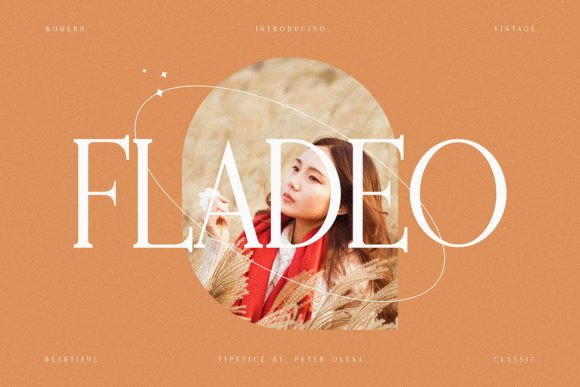
Introducing Fladeo Font: Elevate Your Design to New Heights of Sophistication
In the world of typography, a font can make or break the visual appeal of a project. For designers and brands looking to make a lasting impression, Fladeo Font is an exceptional choice. This fancy and stylish serif font is specifically designed to elevate any project to the next level of sophistication. With its intricate details and elegant curves, Fladeo creates a refined and classy look that is perfect for high-end branding, packaging, and editorial design.
The Characteristics of Fladeo Font
Fladeo Font boasts a range of characteristics that set it apart from other fonts. Its serif design provides a classic and timeless feel, while its intricate details and elegant curves add a touch of luxury and refinement. The font’s refined and classy look makes it perfect for projects that require a high level of sophistication.
- Fancy and Stylish Design: Fladeo Font features a unique and stylish design that is sure to make your project stand out.
- Intricate Details: The font’s intricate details add a level of sophistication and elegance to your project.
- Elegant Curves: The elegant curves of Fladeo Font create a refined and classy look that is perfect for high-end branding and design.
- PUA Encoded: Fladeo Font is PUA encoded, which means you can access all glyphs and swashes effortlessly.
The Benefits of Using Fladeo Font
Using Fladeo Font in your project can have a significant impact on its overall success. Here are just a few benefits of using this exceptional font:
- Luxury and Refinement: Fladeo Font adds a touch of luxury and refinement to your project, making it unforgettable.
- High-End Branding: The font’s sophisticated design makes it perfect for high-end branding and packaging.
- Editorial Design: Fladeo Font is also ideal for editorial design, adding a level of elegance and sophistication to any publication.
- Versatility: The font’s versatility means it can be used in a range of projects, from logos and branding to packaging and editorial design.
How to Use Fladeo Font in Your Project
Using Fladeo Font in your project is easy. Here are a few tips to get you started:
- Pair it with Other Fonts: Fladeo Font pairs well with other fonts, making it easy to create a unique and stylish design.
- Experiment with Different Sizes: The font’s versatility means it can be used in a range of sizes, from small captions to large headlines.
- Take Advantage of PUA Encoding: Fladeo Font’s PUA encoding makes it easy to access all glyphs and swashes, allowing you to create a truly unique design.
In conclusion, Fladeo Font is an exceptional choice for designers and brands looking to elevate their project to the next level of sophistication. With its intricate details, elegant curves, and refined design, Fladeo Font is perfect for high-end branding, packaging, and editorial design. Its PUA encoding makes it easy to access all glyphs and swashes, allowing you to create a truly unique and stylish design.
Whether you’re looking to create a luxury brand, design a high-end package, or simply add a touch of elegance to your editorial design, Fladeo Font is an excellent choice. So why settle for an ordinary font when you can elevate your design to new heights of sophistication with Fladeo Font?
- What is Fladeo Font?: Fladeo Font is a fancy and stylish serif font designed to elevate any project to the next level of sophistication.
- What is PUA encoding?: PUA encoding allows you to access all glyphs and swashes in the font, making it easy to create a unique and stylish design.
- What types of projects is Fladeo Font suitable for?: Fladeo Font is perfect for high-end branding, packaging, and editorial design.